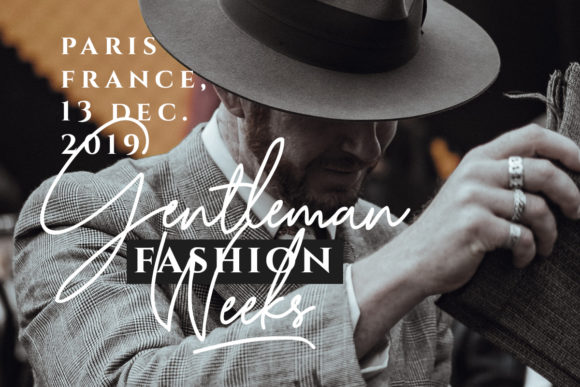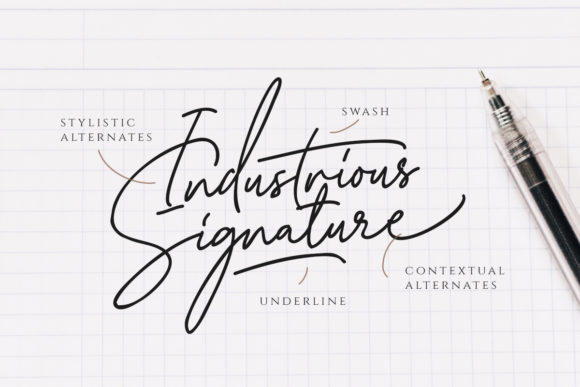
Katherine Font
db-ku.com - Script & Handwritten -- Katherine is a delicate and flowing handwritten font. It looks stunning on wedding invitations, thank you cards, quotes, greeting cards, logos, business cards and every other design which needs a handwritten touch.